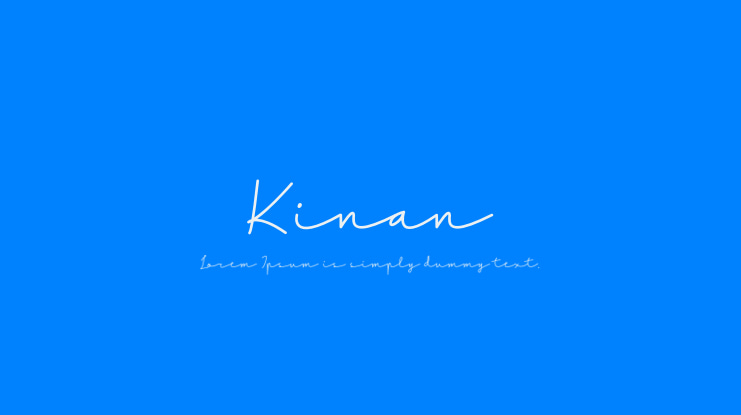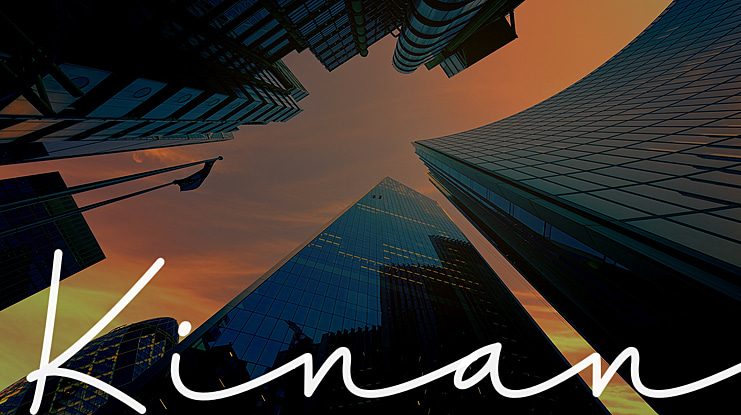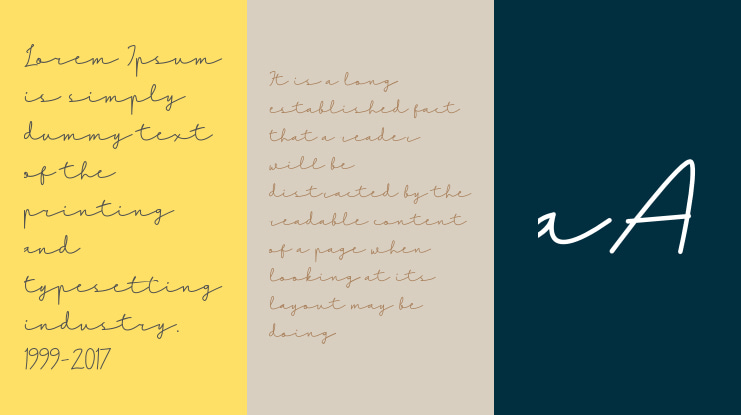
Kinan Font
Kinan is a fresh monoline script font, suitable for use in a wide range of project types. This font is a great way to add a touch of refinement and modernity as a headline font.